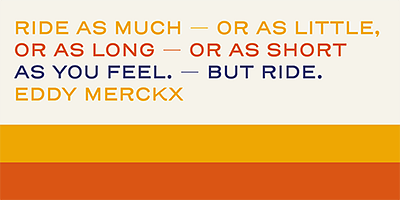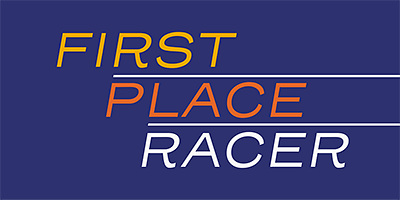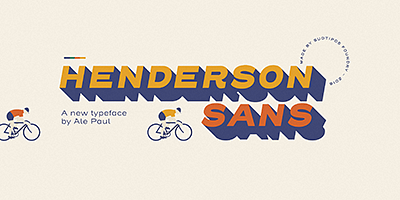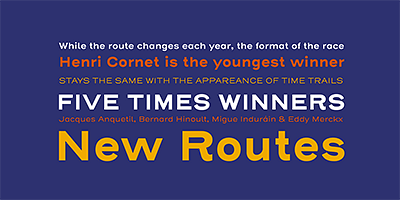
The first thought that crosses a type designer’s mind upon seeing a slab serif is: I wonder what it would look if it was serifless. And so, after building Henderson Slab, I followed my instincts and gave it a sans serif companion. Henderson Sans comes in seven weights plus italics, each of which casting an eye on the crafty lettering origins of what is now the ubiquitous mode of corporate communication. Henderson Sans is a family of seven weights plus italics. Check Henderson Slab too!